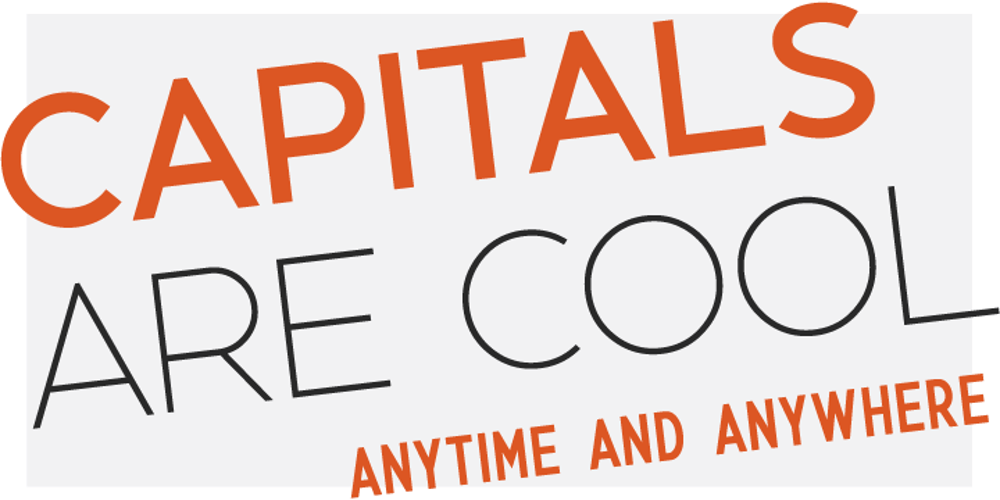
Phi Caps Font Family was designed by Cas van de Goor and published by Cas van de Goor. Phi Caps contains 9 styles and family package options. Phi Caps is a geometric all caps typeface designed on the basis of the golden ratio. Its simple monoline letters come together in a solid font. Note: There is a new and improved version of this typeface called Phi. It includes lowercase letters and supports Central, Eastern and Western European languages.